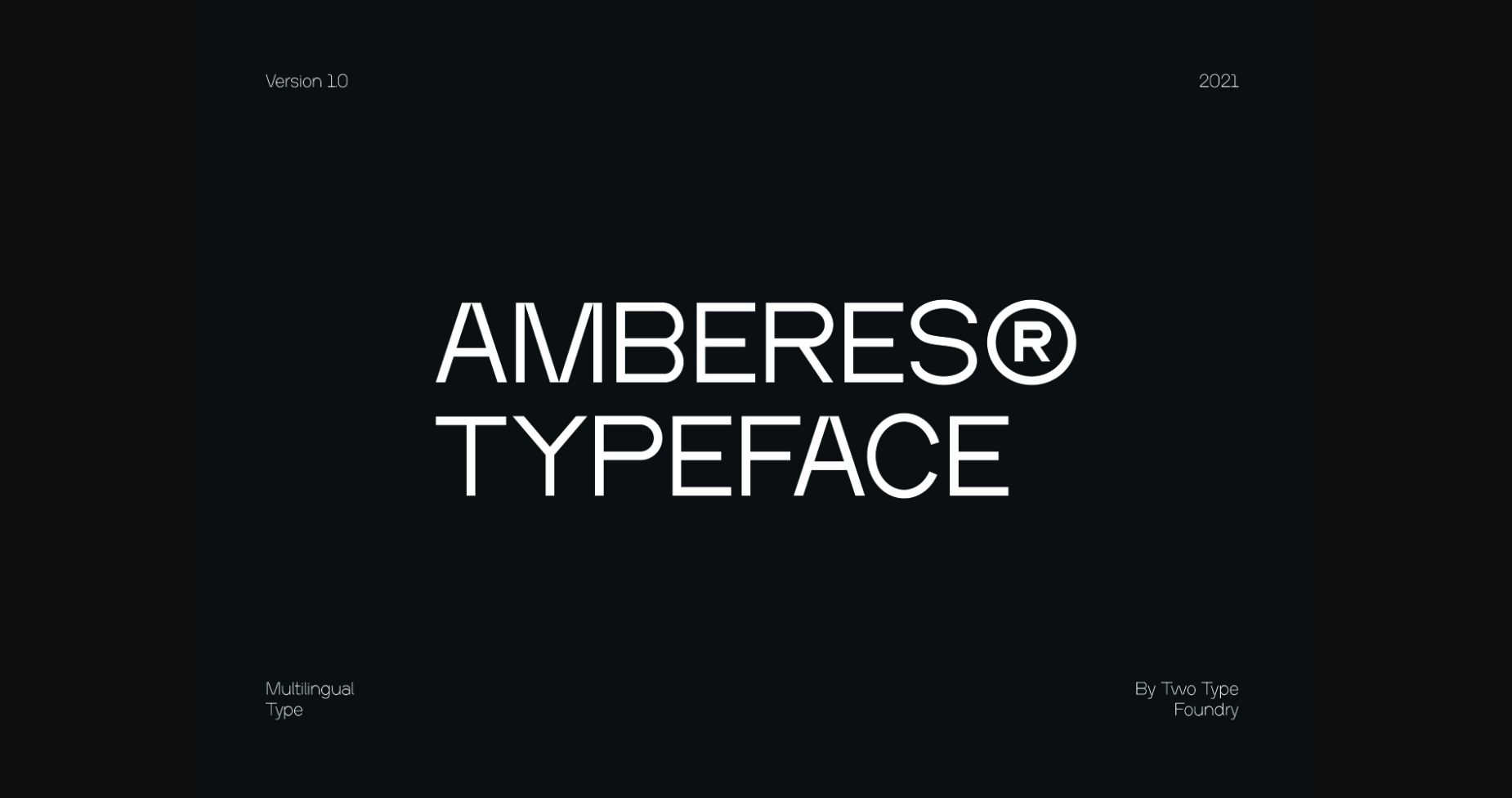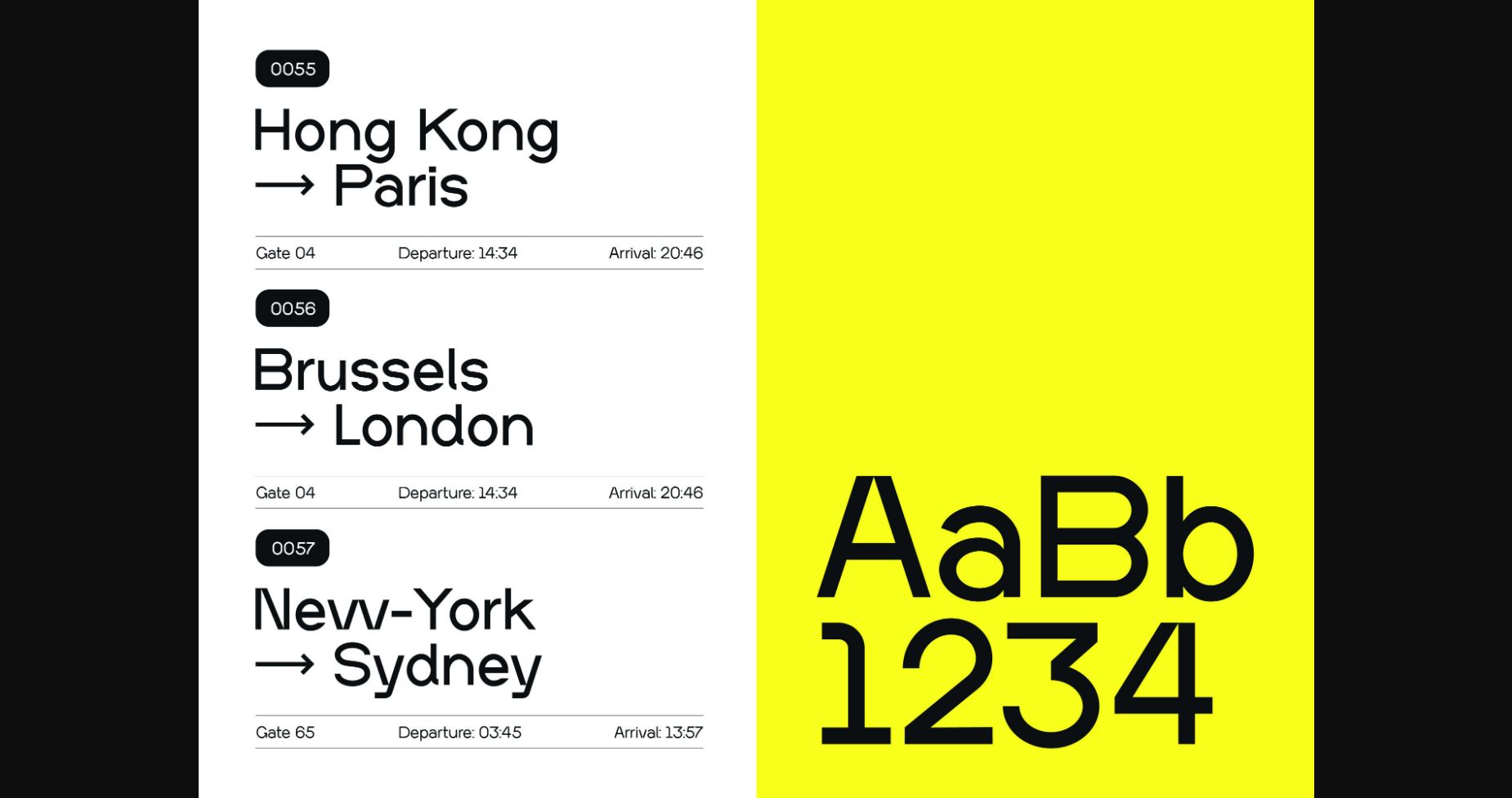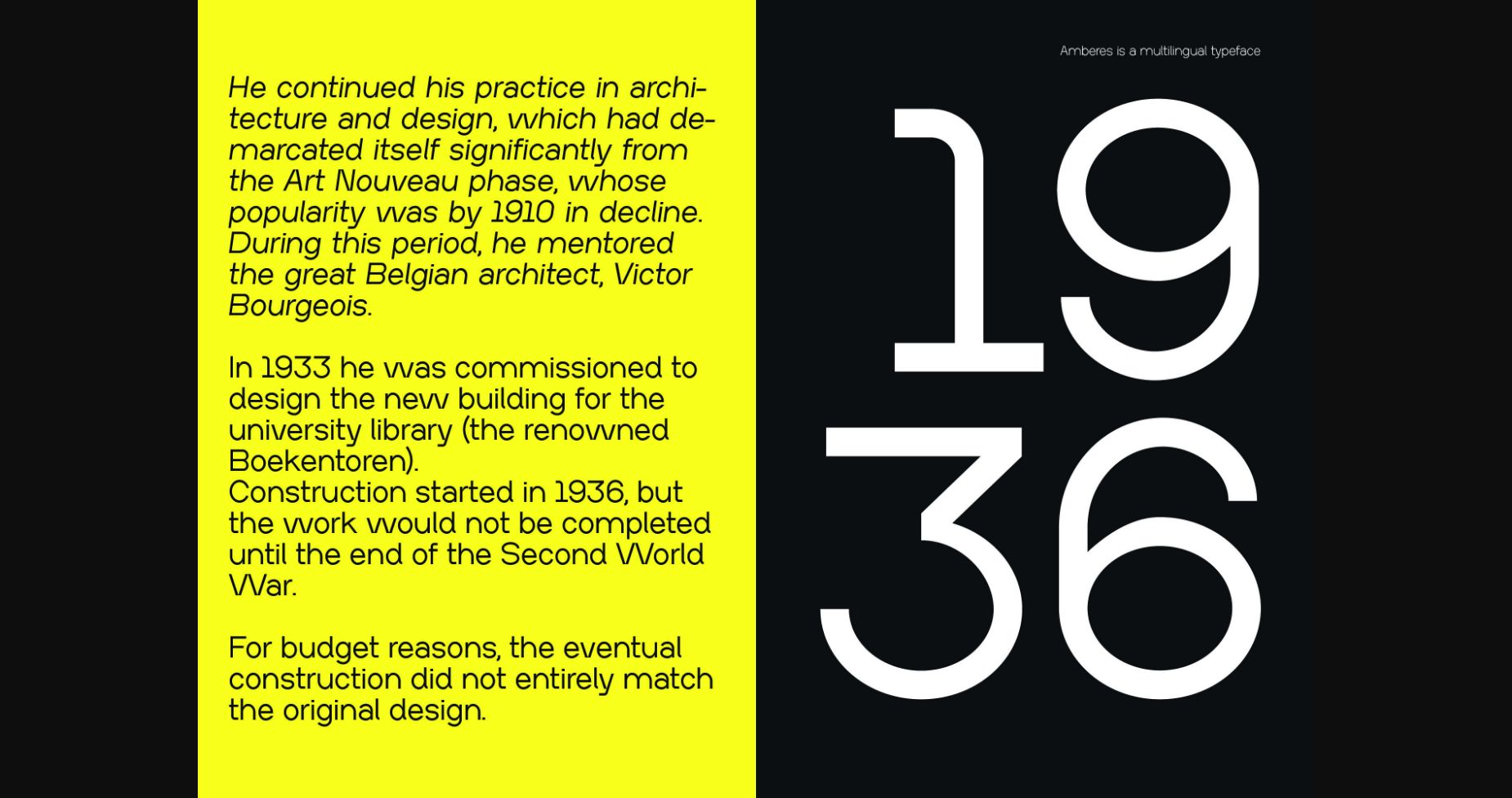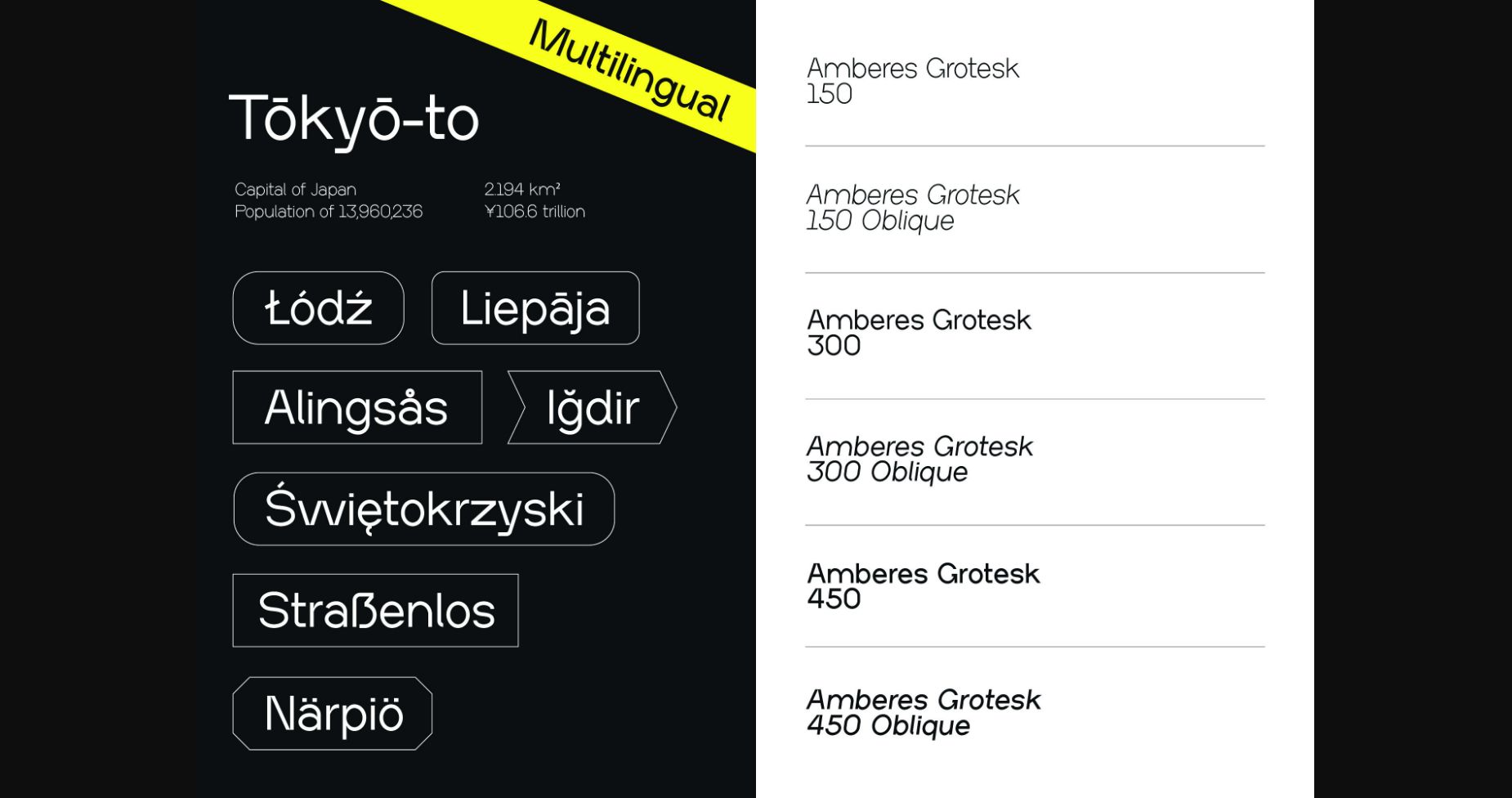
About Amberes Font
Amberes is a minimal and neat sans serif font. It can easily be matched to an incredibly large set of projects, so add it to your creative ideas and notice how it makes them stand out!